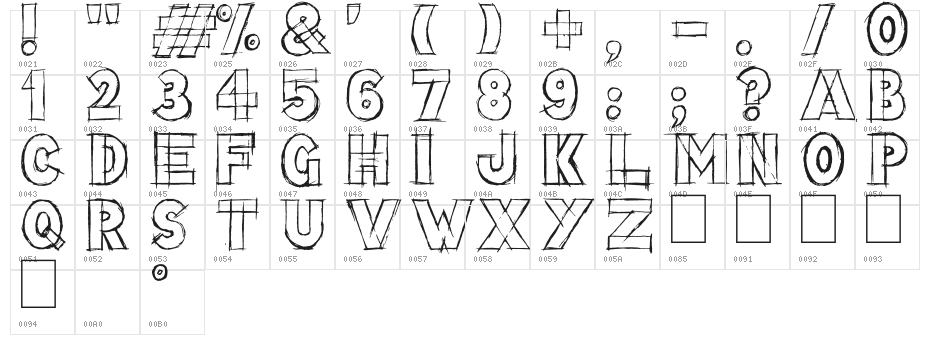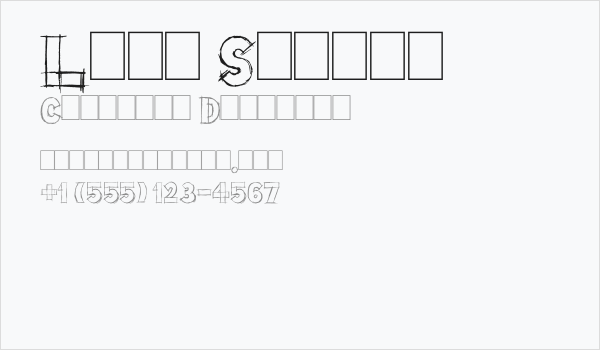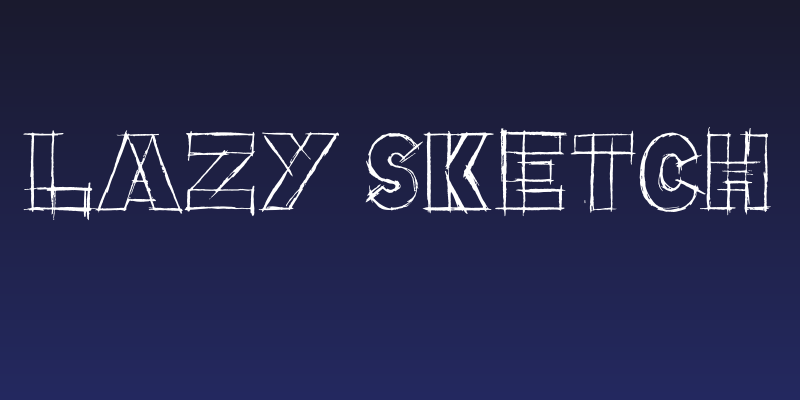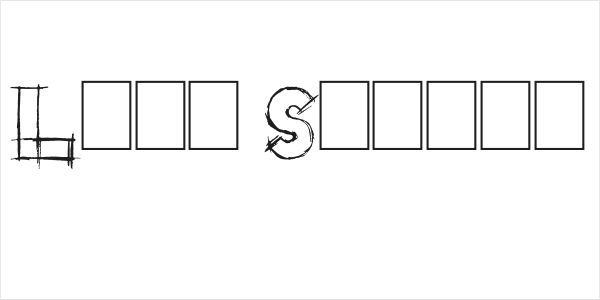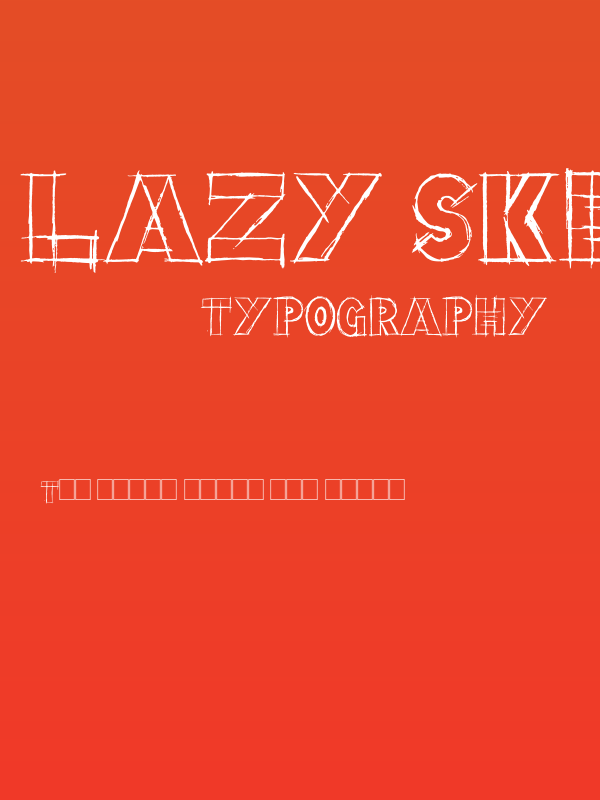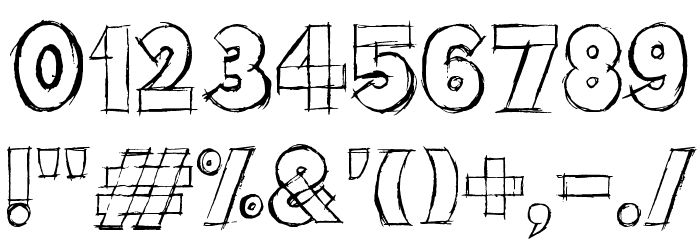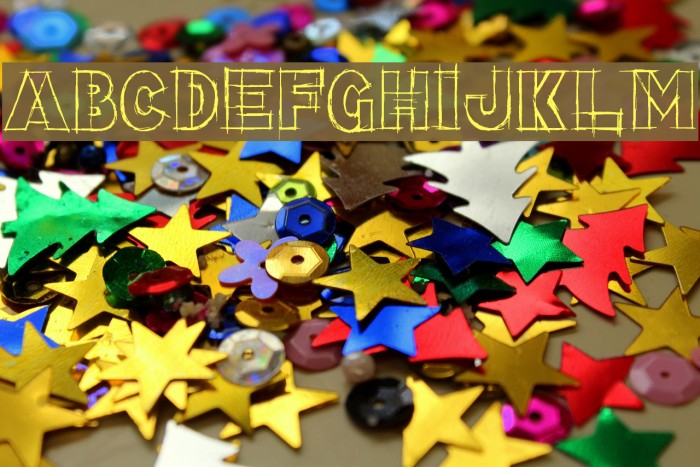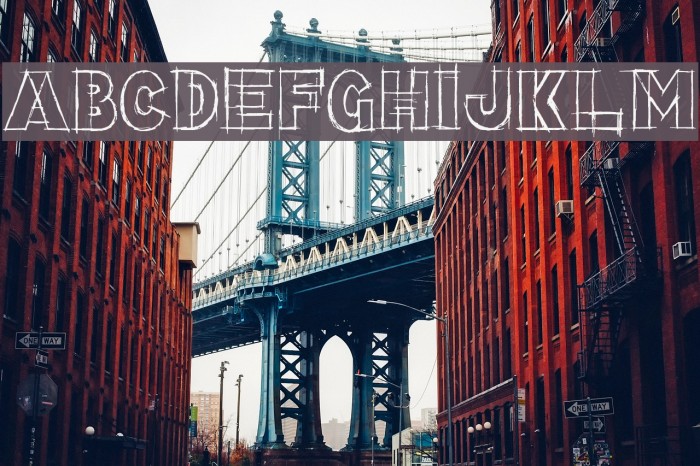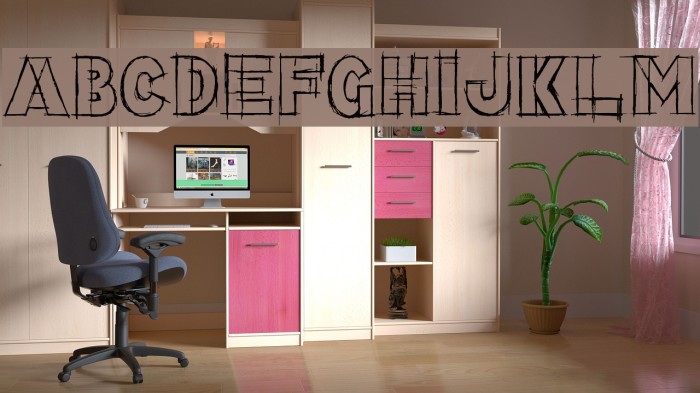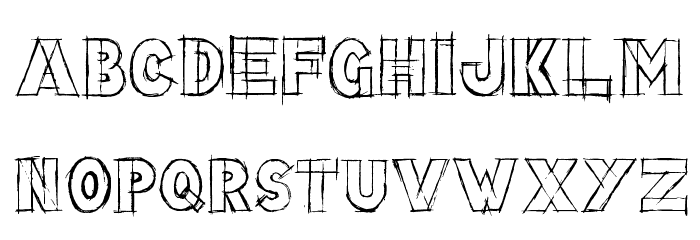
Lazy Sketch Font
This font features a playful, hand-drawn style that mimics the look of a sketch. The characters have a rough, textured appearance with uneven lines and a casual, artistic flair. Each letter and number is outlined with a slightly irregular stroke, giving it a dynamic and lively feel. The font maintains a consistent height across all characters, while the width varies slightly, adding to its quirky charm. It includes a full set of uppercase and lowercase letters, numbers, and a variety of special characters, making it versatile for creative projects.
| Proposed Projects | Ideal for children's book covers, comic strips, casual posters, and creative branding projects. |